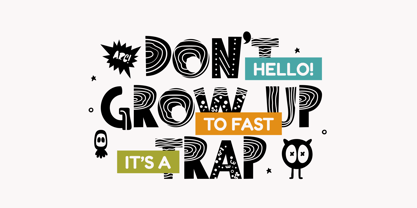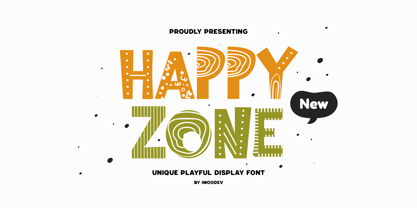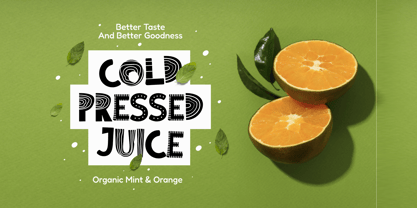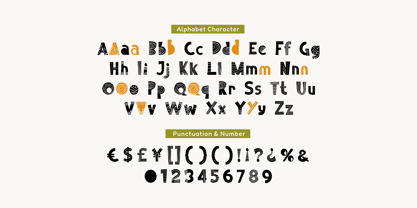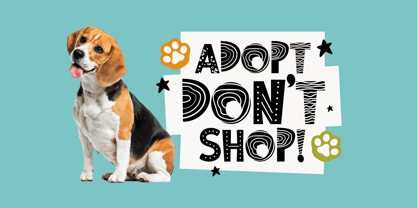
Happy Zone
by Imoodev
The Happy Zone Font Family was designed by Aulia Savira Putri and published by Imoodev. Happy Zone contains 1 styles. More about this family
Happy Zone is a playful eclectic display font that mixes various quirky textures and styles within each letter.
It’s inspired artsy aesthetics using patterns like stripes, dots, waves, zigzags, and solid fills.
Happy Zone gives off a playful, decorative, energetic feel, presenting a unique and lively appearance perfect for playful branding, children's content, craft-based projects, or anything that wants to exude a sense of fun and creativity.